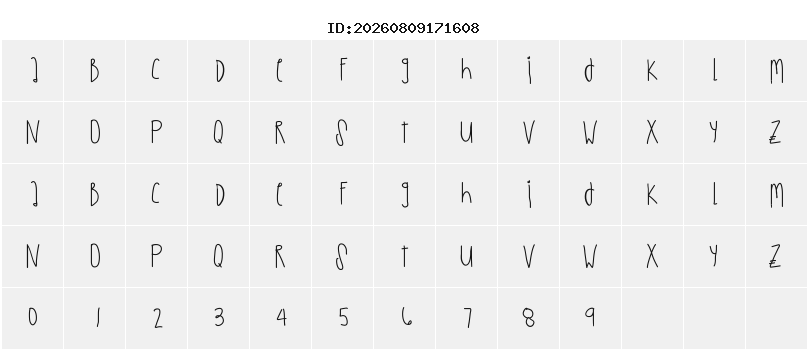
• Font Name: ParisViews
About ParisViews.ttf
ParisViews.ttf is a modern, elegant sans-serif font designed for ultimate readability and visual harmony. Perfect for branding, headlines, web design, and print materials.